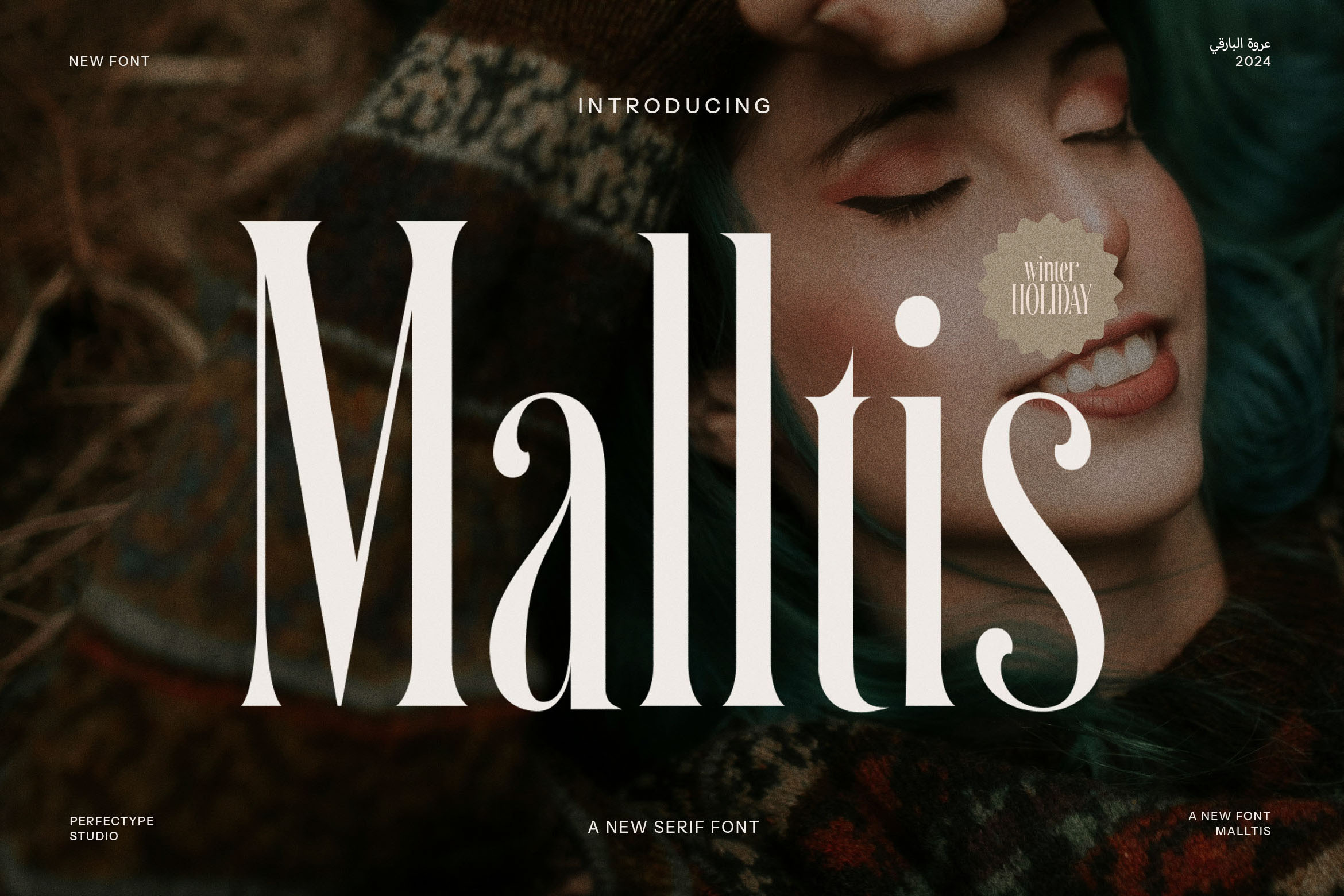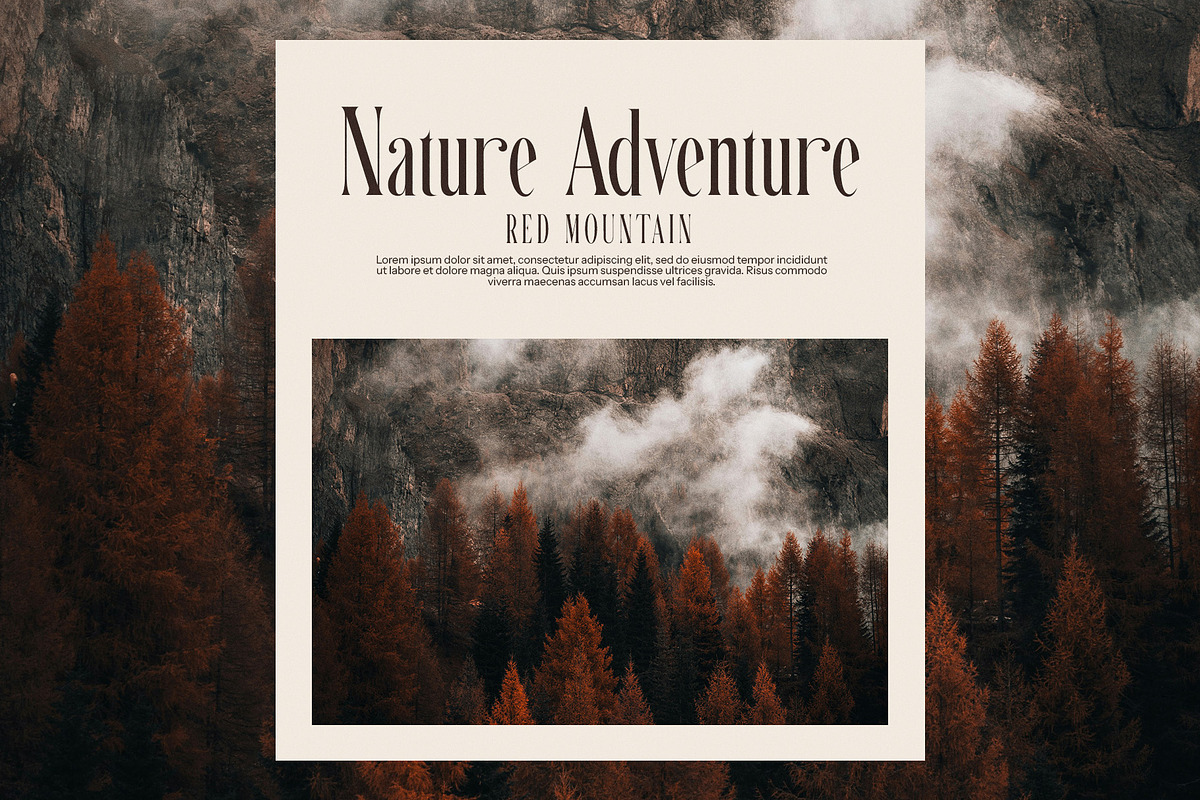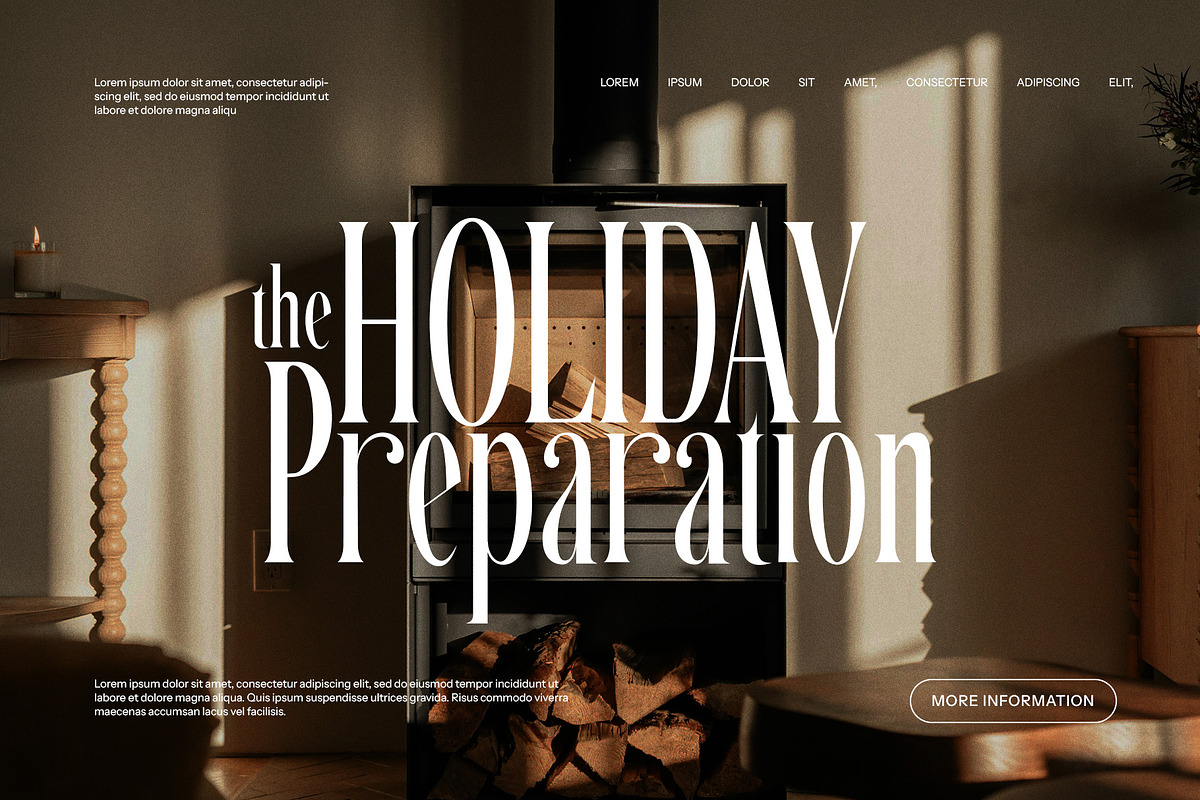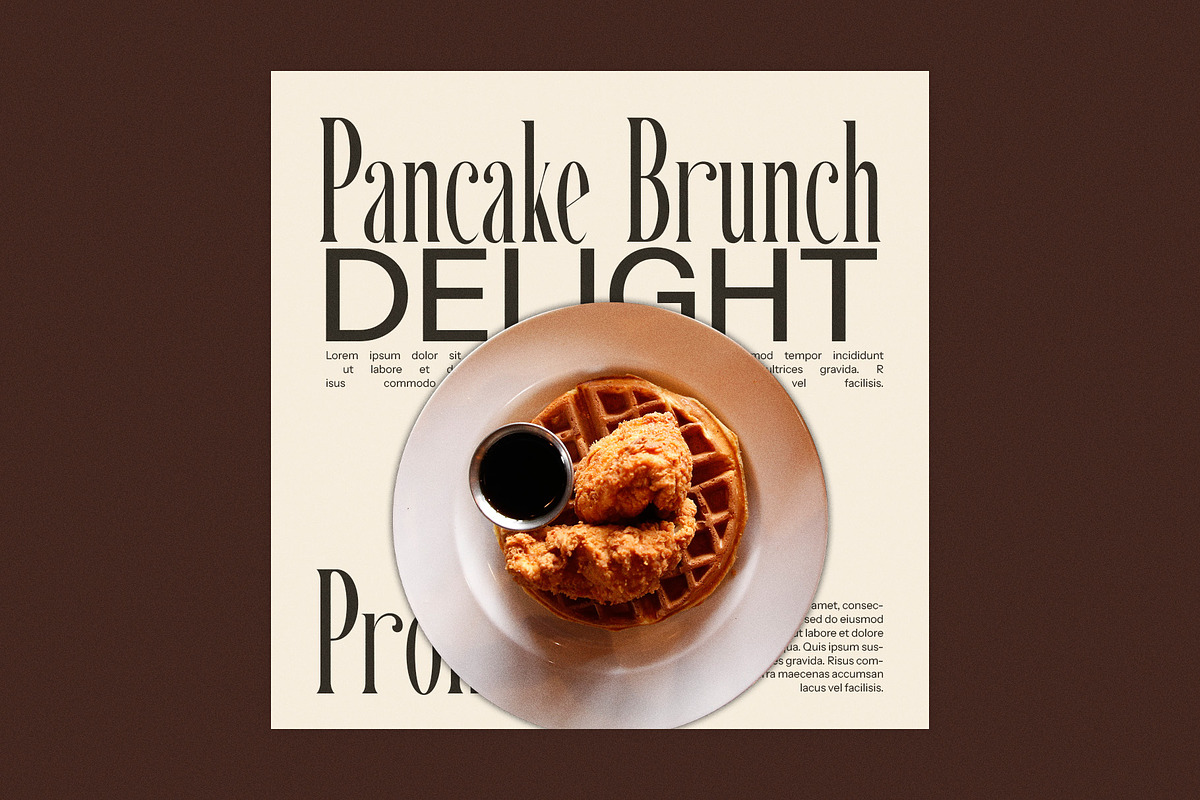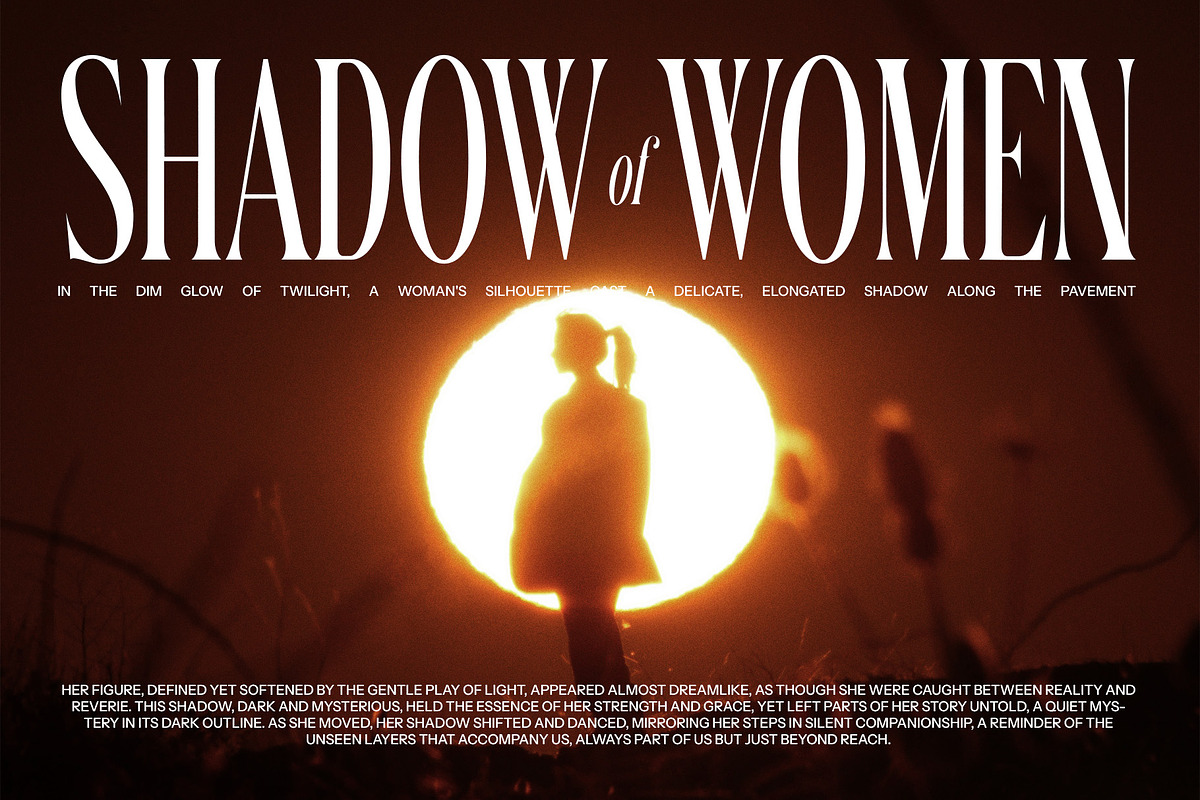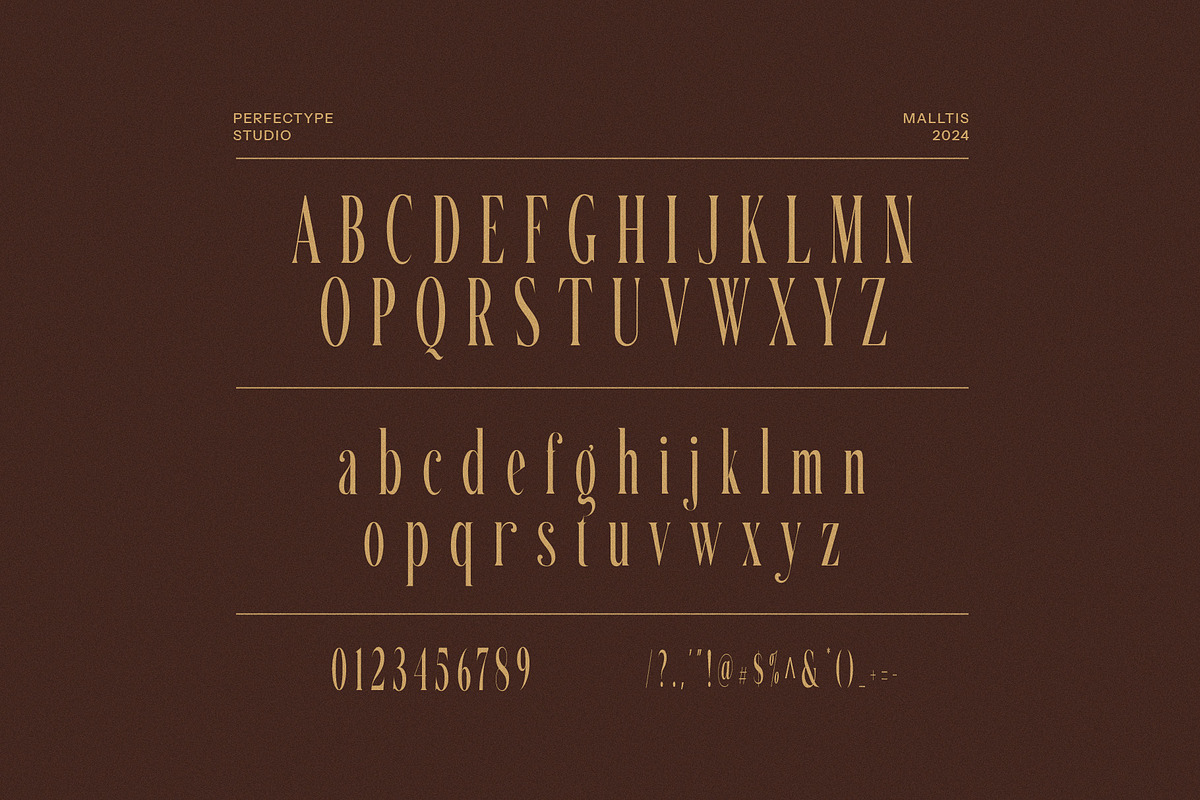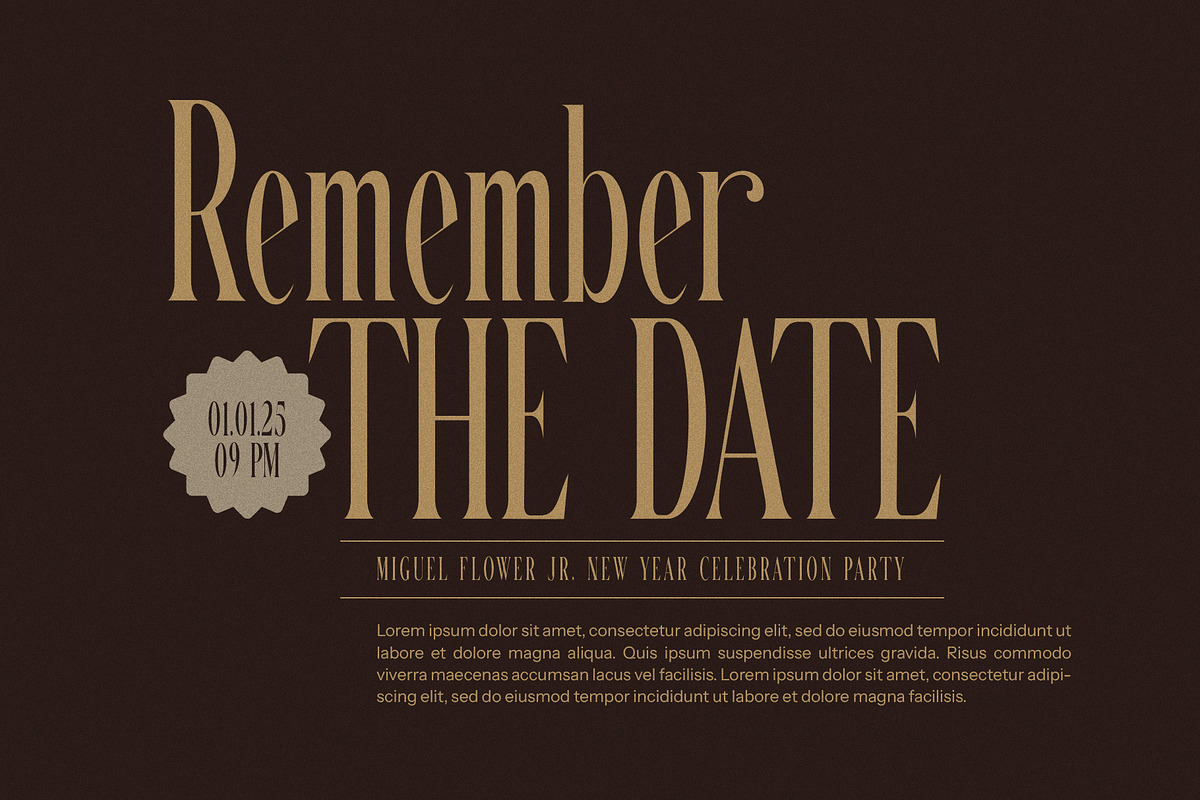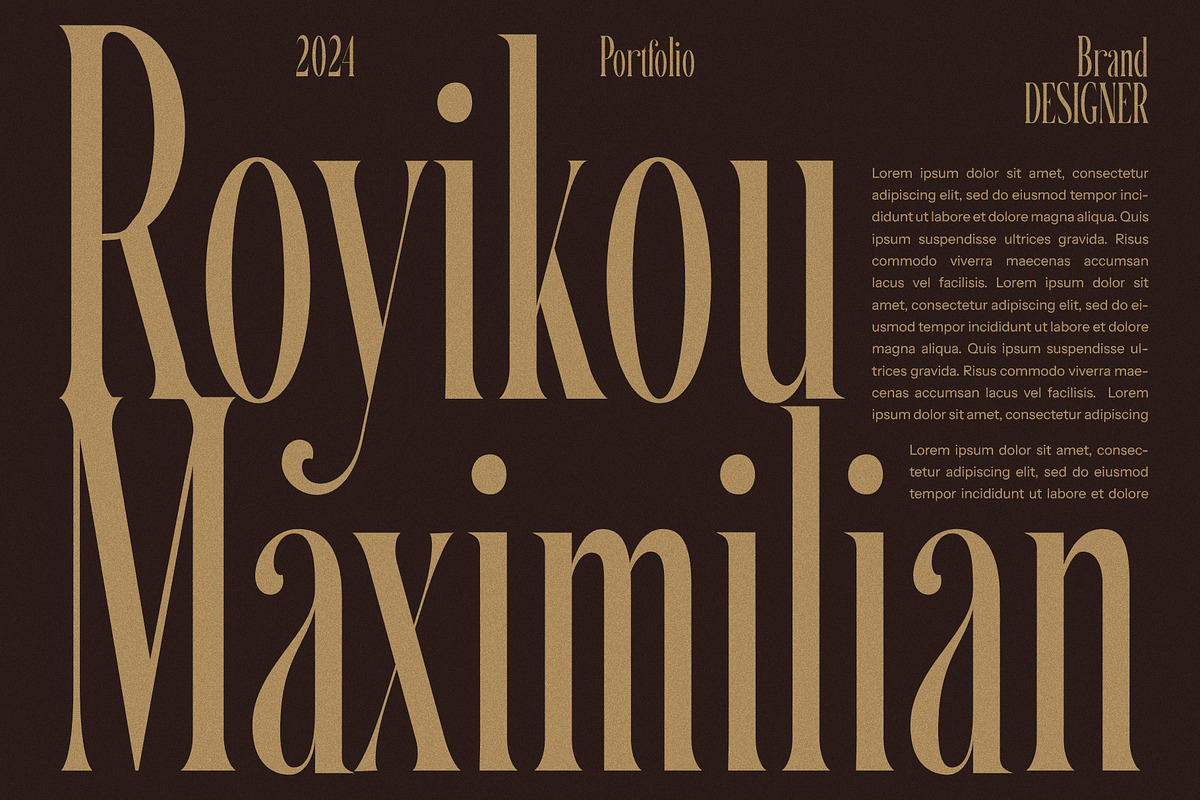
Malltis Stylish Serif Font
Malltis Stylish Serif Font: Modern Elegance with Timeless Appeal
Malltis Stylish Serif Font is a beautifully crafted typeface that blends modern sophistication with vintage charm. Featuring elongated, sleek serifs and meticulously designed letterforms, Malltis offers a refined and distinctive aesthetic that works perfectly across a variety of design applications. This versatile font is an ideal choice for anyone seeking to elevate their creative projects with an elegant and stylish look.
With its clean lines and unique character, Malltis Stylish Serif Font is perfect for branding, logos, website design, and magazine layouts. Its timeless appeal makes it an excellent choice for luxury brands, boutiques, restaurants, and fashion labels, as well as product packaging and advertising materials. Whether you're designing a high-end logo, an eye-catching advertisement, or a sophisticated website, Malltis provides the perfect balance of elegance and readability.
The elongated serifs and clean structure of Malltis ensure excellent legibility, whether used for headlines, body copy, or social media graphics. Its unique design also makes it ideal for creative portfolios, magazine spreads, and print materials, where style and clarity are essential. The font’s distinctive appearance makes it stand out in both digital and print media, making it a versatile choice for a wide range of creative projects.
Elevate your next design project with Malltis Stylish Serif Font – the perfect combination of modern elegance and classic charm, ideal for designers seeking to create a lasting impression.